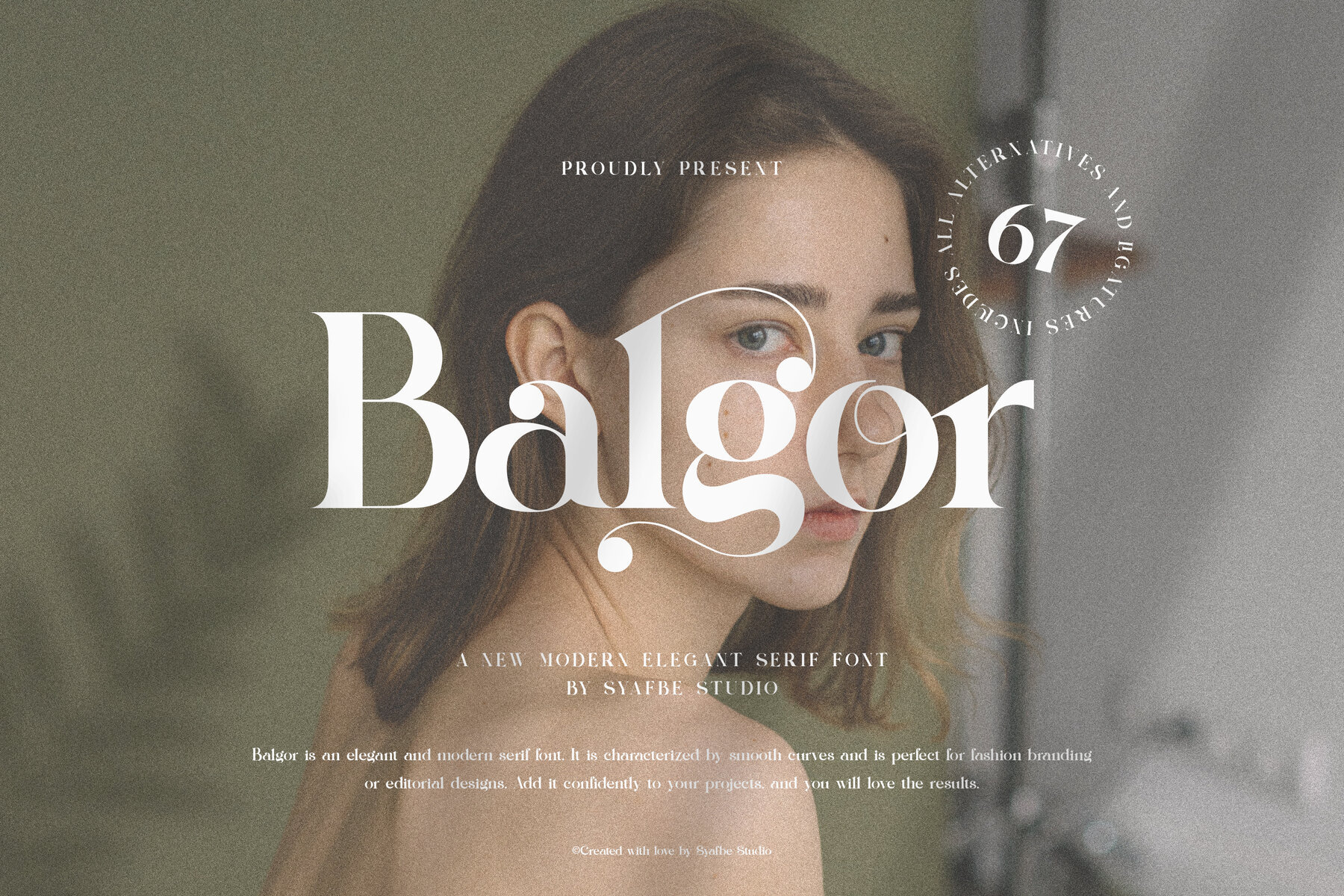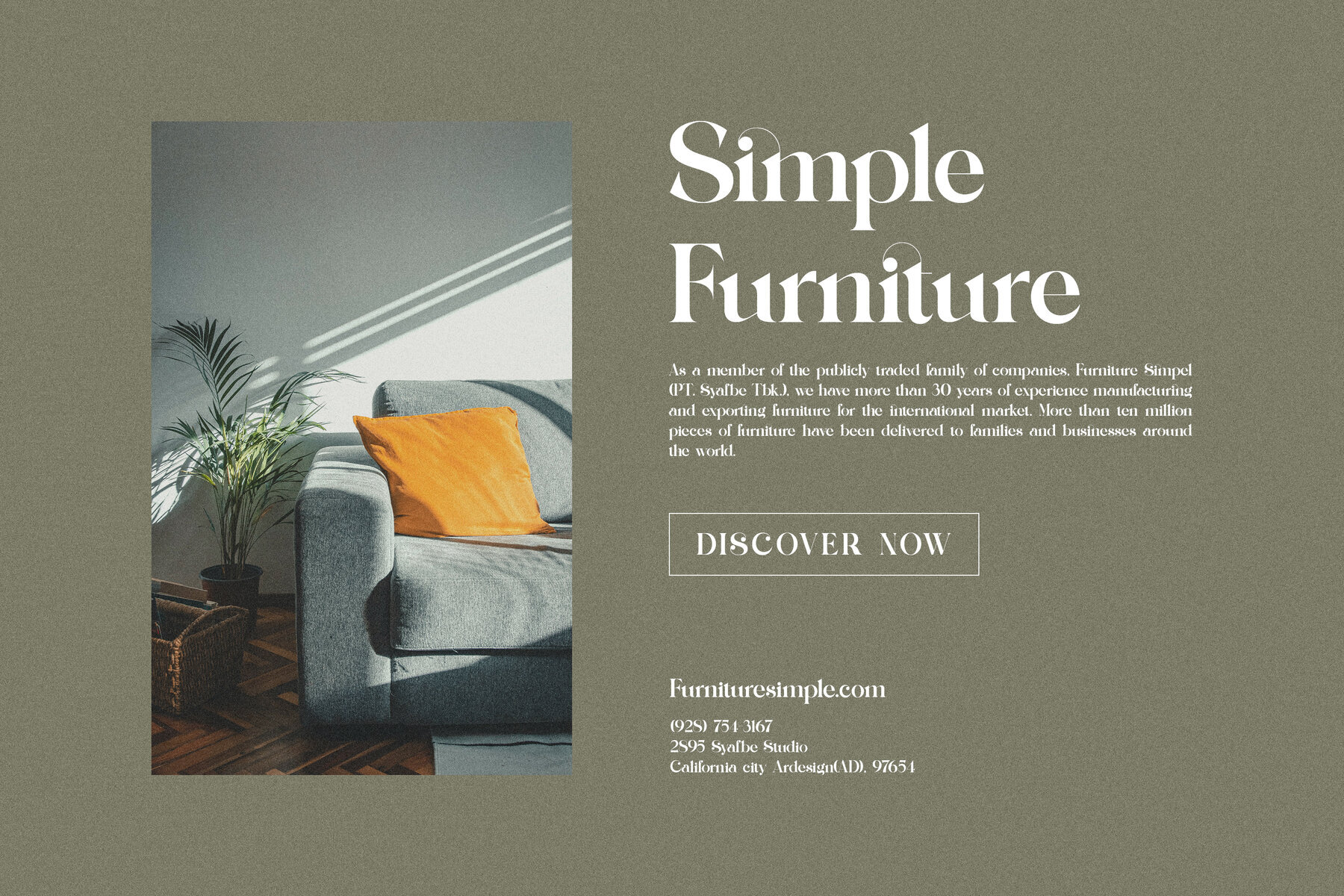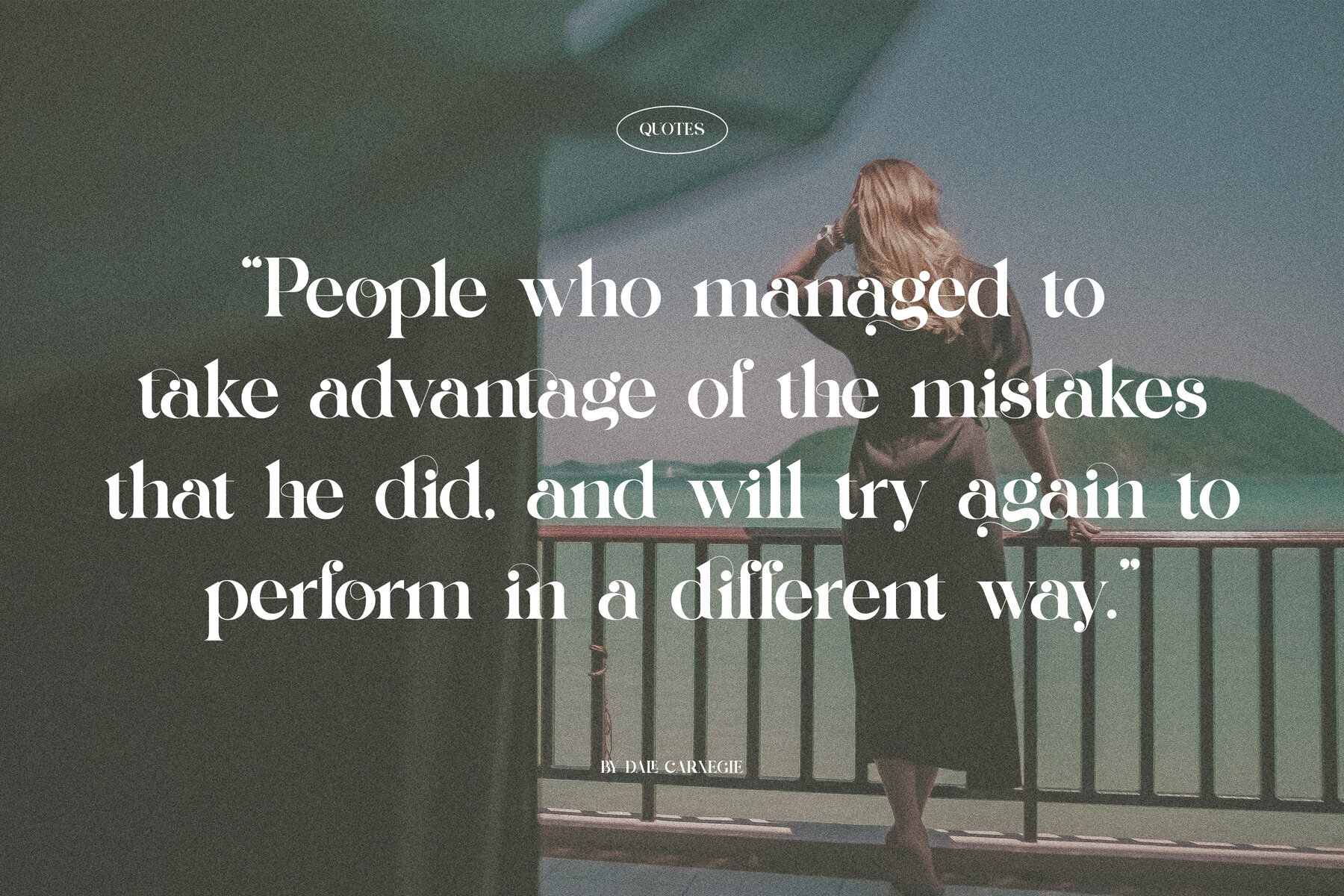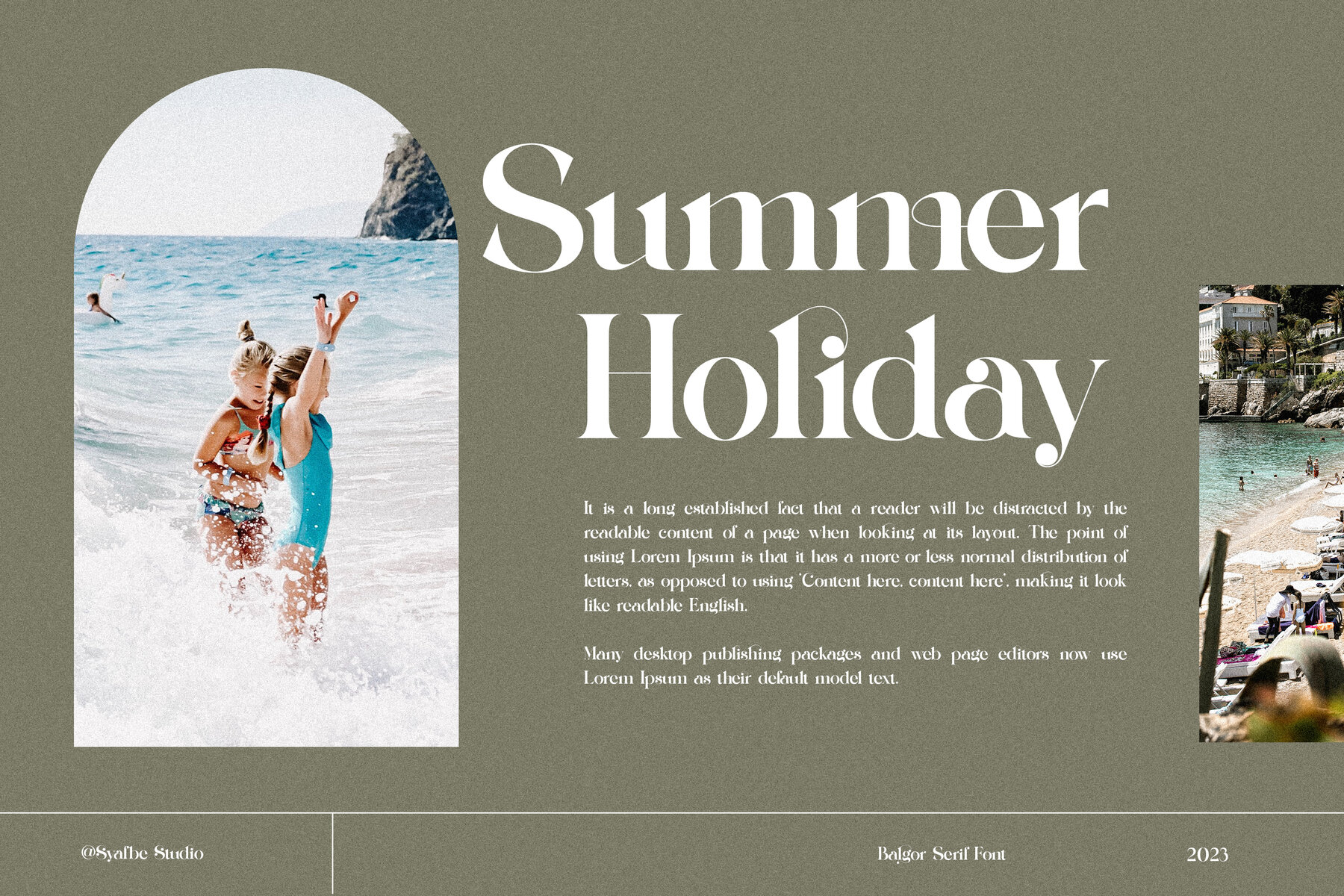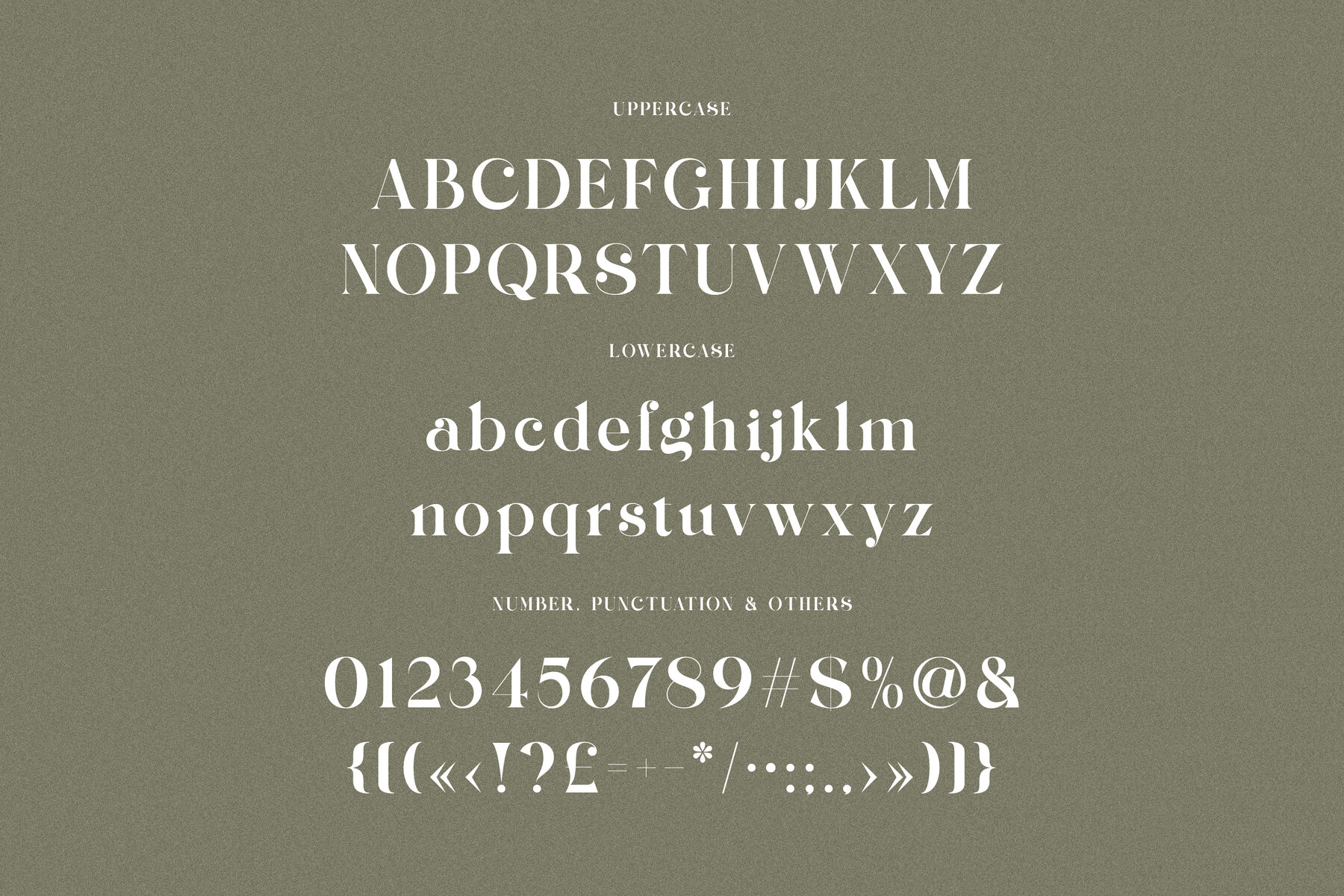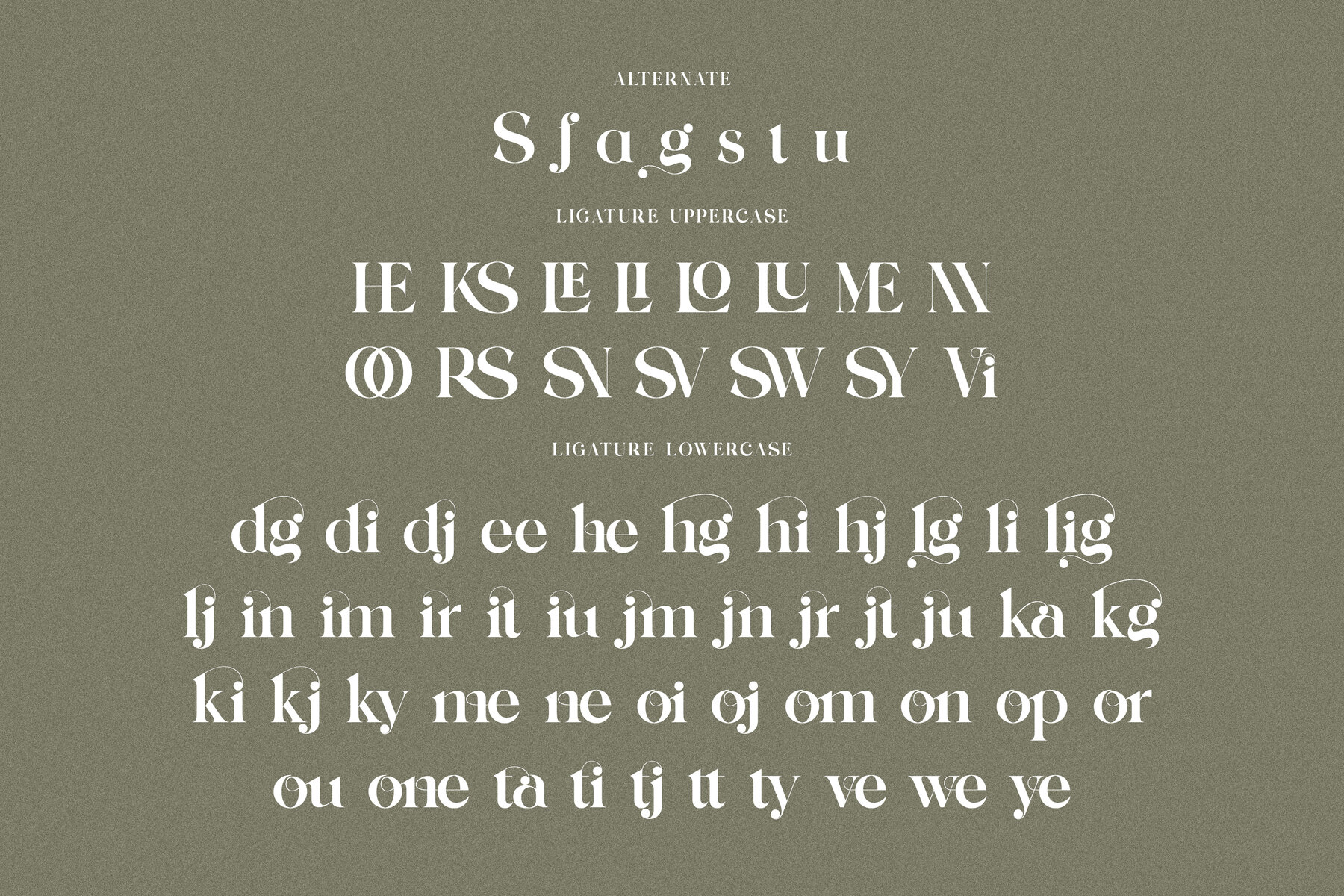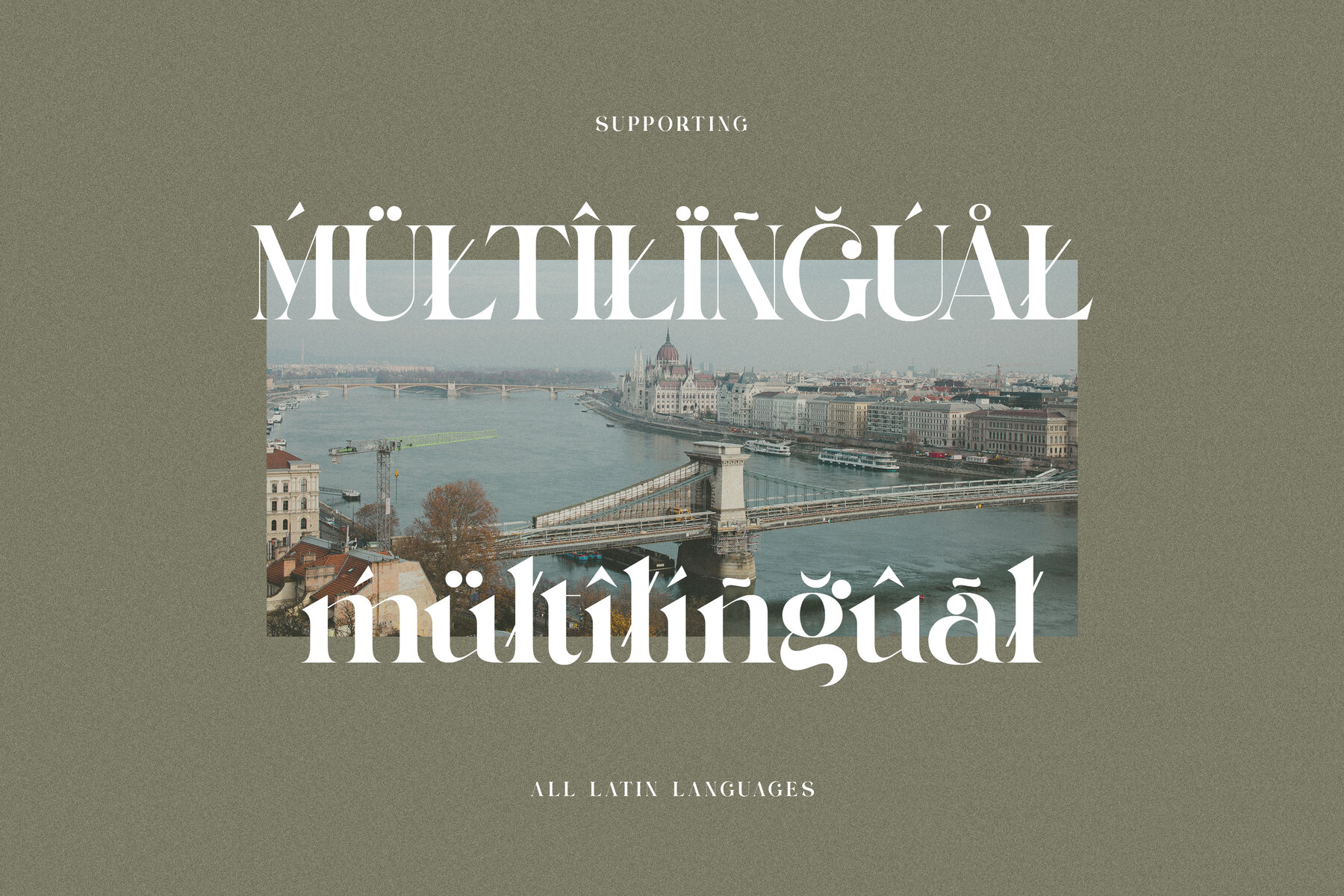
Balgor Font
Balgor
Balgor is an elegant and modern serif font characterized by smooth curves, making it perfect for fashion branding and editorial designs. Add it confidently to your projects for striking and sophisticated results.Balgor: Elegant Serif for Fashion Branding